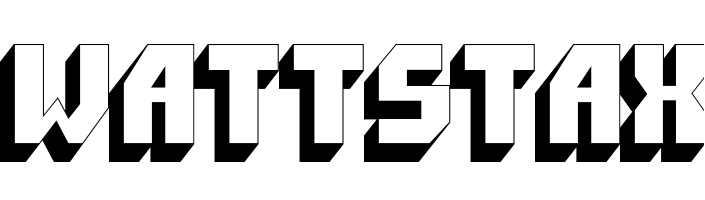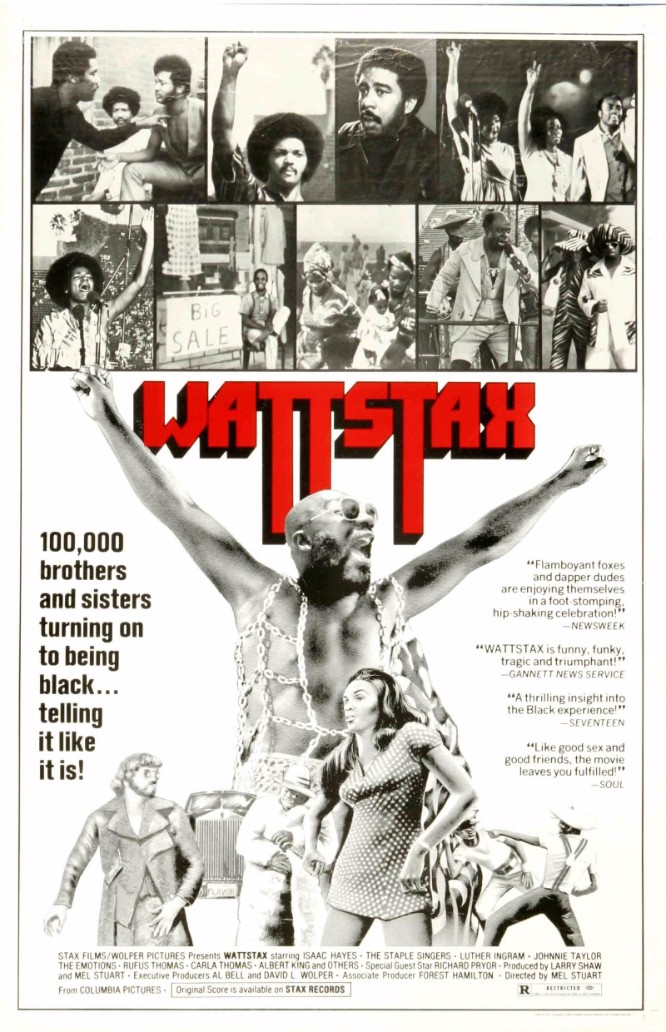
Wattstax (film) Font
DocumentaryWattstax is a 1972 American documentary film that covers the Wattstax music festival, held in Los Angeles in 1972 to commemorate the seventh anniversary of the 1965 Watts riots.
The film's title, "Wattstax," is prominently featured on the theatrical poster in a font called ITC Pioneer, designed by Ronne Bonder and Tom Carnase. The figures in the title appear to be three-dimensional due to the addition of a shadow effect.